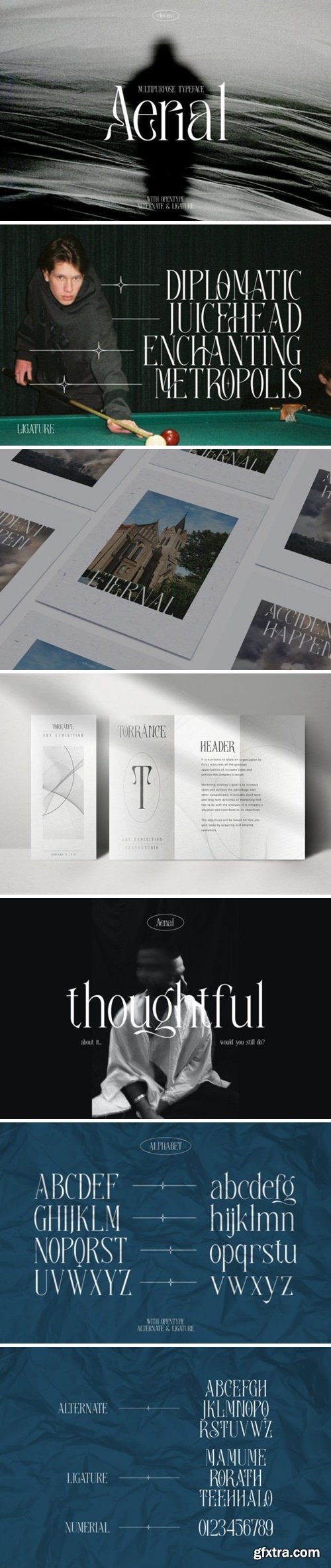
Aerial Font
Loveround Font
LoveRound is an exquisite and elegant serif font that captures the essence of vintage luxury. Its graceful curves and delicate details exude a sense of refinement and sophistication, while its timeless design harks back to a bygone era of glamour and indulgence. Perfect for projects that require a touch of class and elegance.
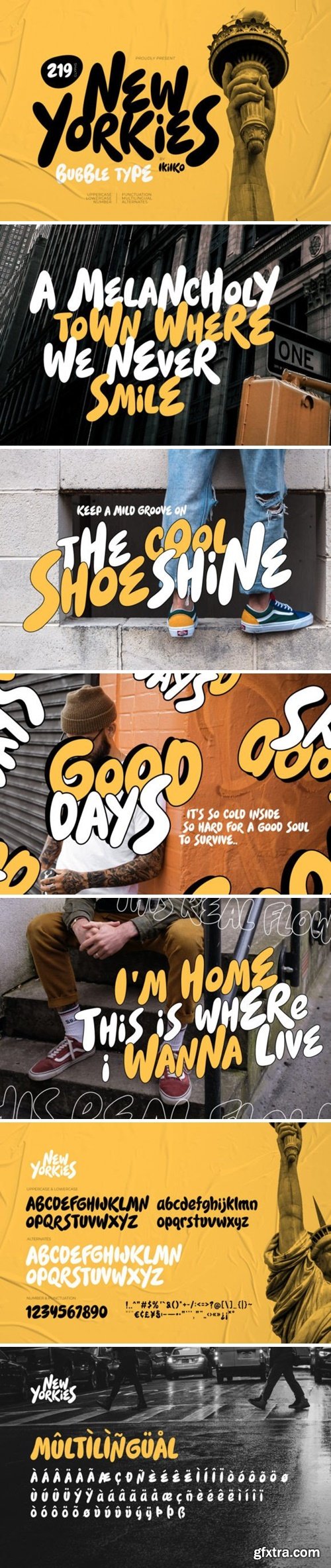
New Yorkies Font
This striking and fashion-forward display font is sure to turn heads. New Yorkies’ stylish and unique letterforms are designed to make a statement, drawing the eye and commanding attention. Whether you’re looking to add a touch of edgy sophistication or playful whimsy to your project, this font delivers in spades. This font is PUA encoded which means you can access all of the amazing glyphs and ligatures with ease!
Kenlan Font
Kenlan is a bold, modern, and extremely stylish serif display font. Its unique style and fashionable appearance, will be a great help when you want to create fashionable, chic designs.
Sanctum Island Font
Sanctum Island is a captivating and distinctive script font that adds a touch of mystery to any design project. Its irregular letterforms, uneven strokes, and bold lines create a sense of intrigue and uniqueness, making it an ideal choice for book covers, album art, and branding that requires a standout look. Sanctum Island is a font that invites exploration and discovery. This font is PUA encoded which means you can access all of the amazing glyphs and ligatures with ease!
Gilway is a playful, rounded display with tons of personality. This versatile typeface is inspired by the earliest examples of rounded types from the 19th century, such as Caslon Rounded (1836) and Schmale Runde Grotesk (1885). Gilway has a distinctive hand-lettered feel because of its subtle variances, which make it powerful and impactful yet incredibly friendly. Layered options allow you to combine the various styles, and a unique Opentype feature makes your letters dance! Gilway’s design is suited for a wide range of uses, including headlines, displays, packaging and logotypes.
Karvx is an arithmetic explication tech sans apt for headline, editorial, branding, packaging, printed materials and typographic applications. 200+ glyphs with ligatures and fractions.